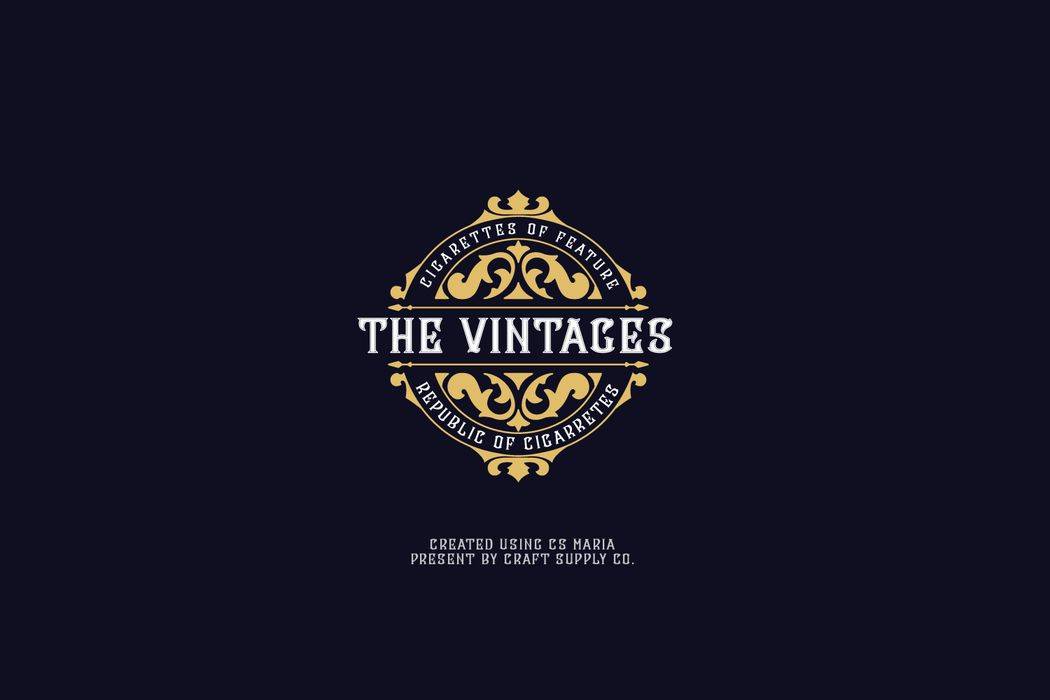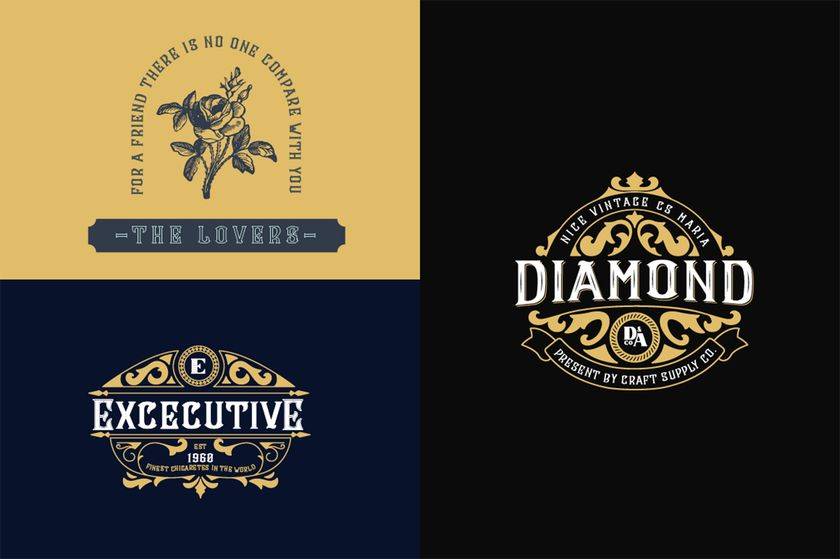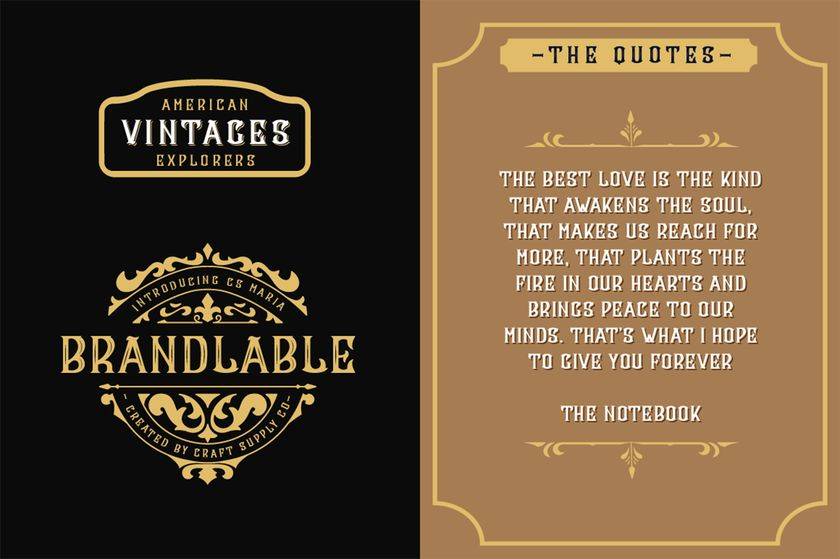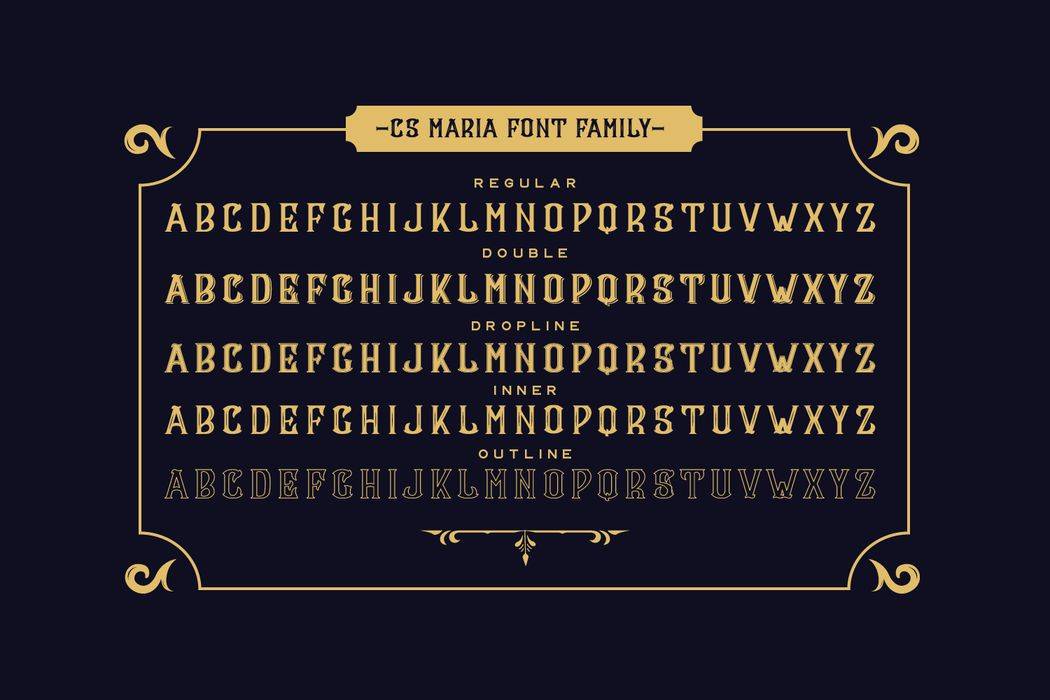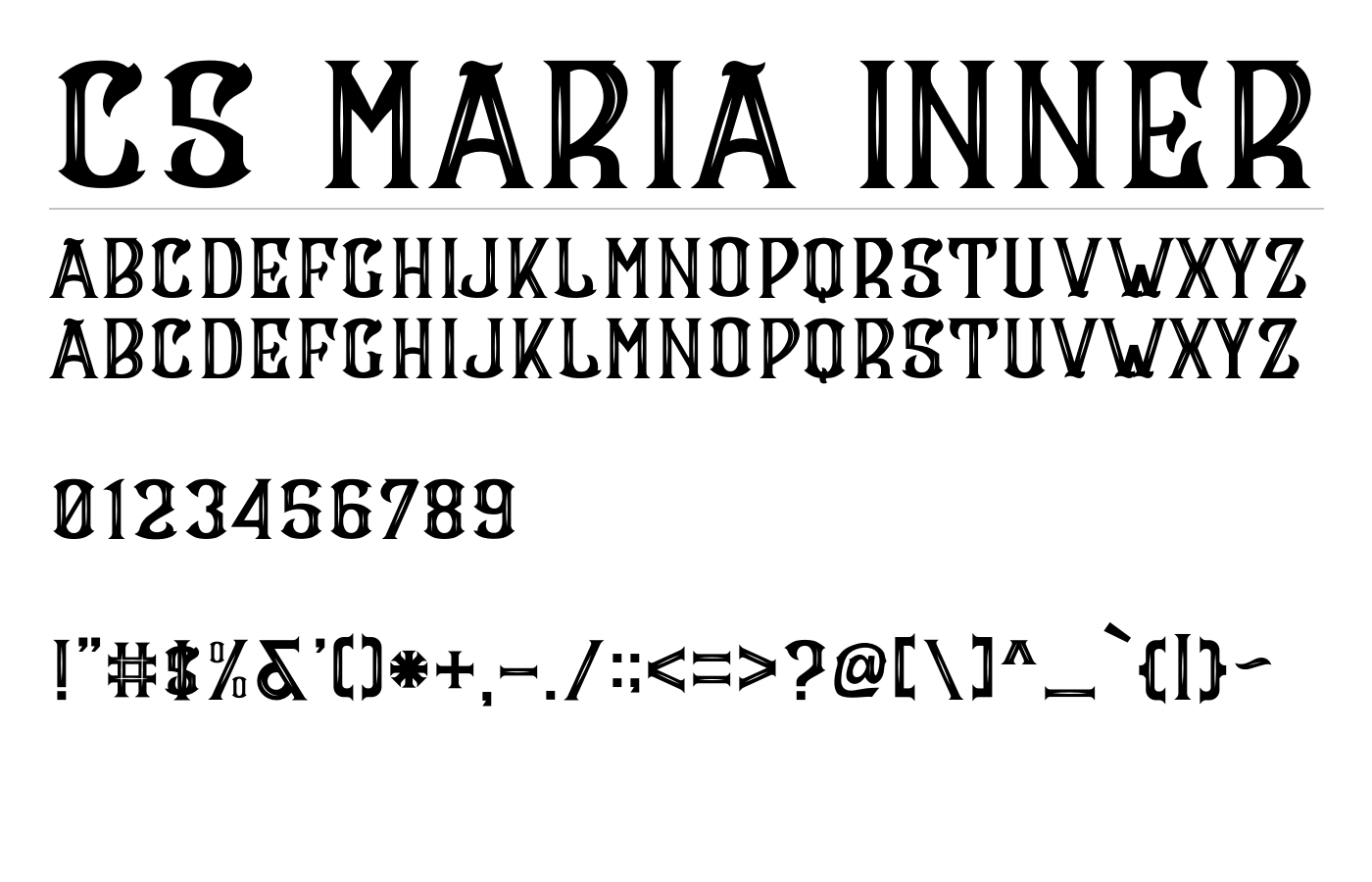
CS Maria is a bold, condensed serif font with a vintage, decorative flair. Its sharply bracketed serifs and high contrast strokes give it an old-world, gothic character, perfect for creating a dramatic and distinct look. This font works wonderfully in headlines, logos, and packaging where a strong, memorable style is desired.
CS Maria Font
About CS Maria Font
| Font family | CS Maria Font |
| Release date | 2018-01-04 |
| Designer | Craft Supply Co. |